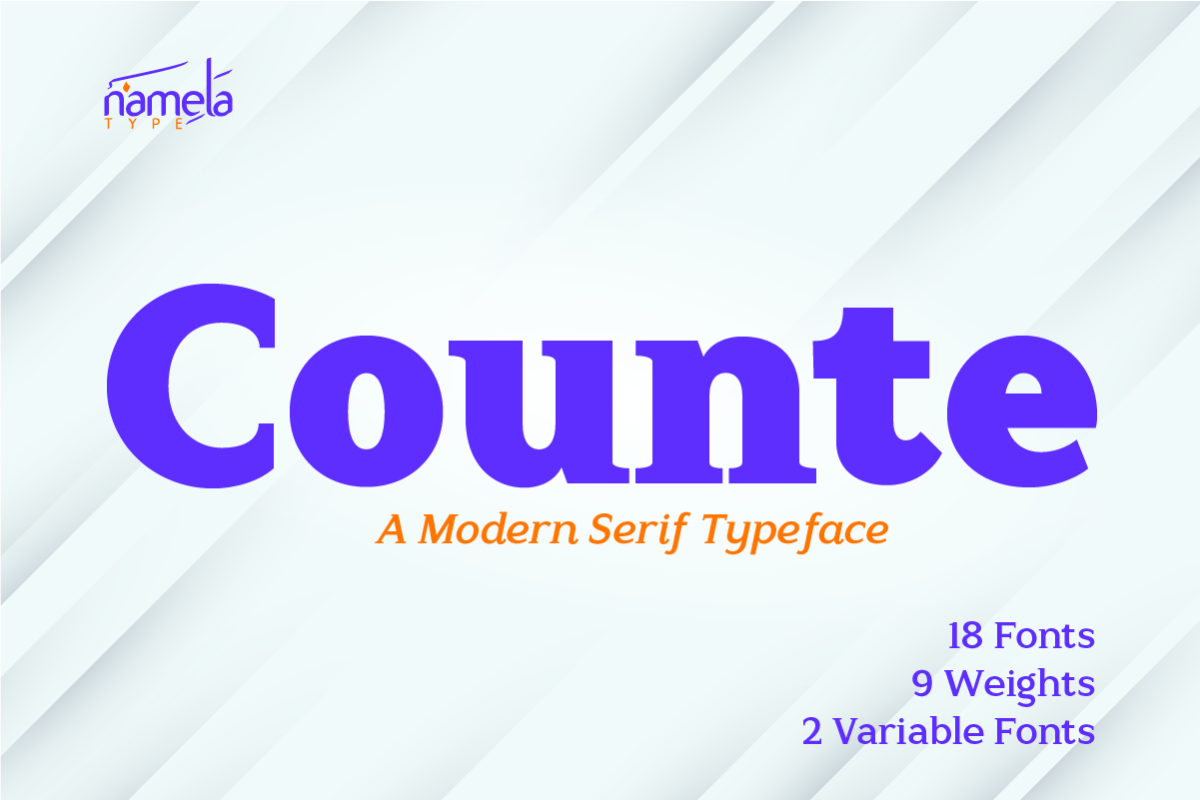
Counte Black Italic
Counte Font - A Contemporary Slab-Serif Typeface for Editorial Design & Social Media In an era where design is often pulled between extremes—the sterile and the ornate—Counte emerges as a refined middle ground. This contemporary slab serif typeface from Namelatype balances classical structure with modern usability, offering clarity, elegance, and versatility for today’s design needs. Whether applied to editorial layouts, premium branding, or polished digital interfaces, Counte Contemporary Sla